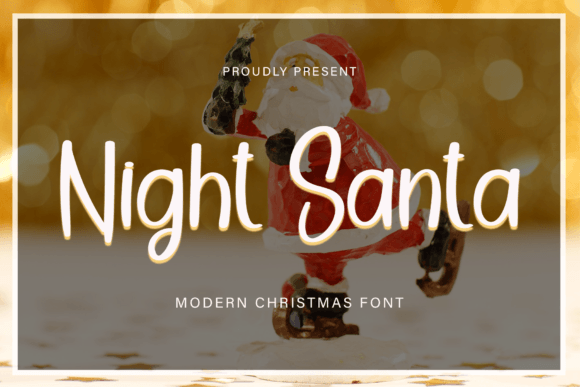
Welcome to the enchanting world of Night Santa, a font family that will bring warmth and charm to your creative projects. Experience the magic of handwritten artistry with Night Santa, a script font that dances across the page with a friendly and inviting personality.
Dive into a world of possibilities with Night Santa, the perfect choice for Instagram posts, where captivating visuals reign supreme. Let your words flow with elegance and authenticity, leaving an unforgettable impression on your audience. Whether you're a seasoned designer or just starting your creative journey, Night Santa is your gateway to captivating content that speaks volumes.
Explore the versatility of Night Santa, a font that seamlessly adapts to your creative vision. From heartfelt wedding invitations to playful birthday cards, from eye-catching posters to personal branding, Night Santa is your trusted companion. Let your imagination run wild as you craft unique designs that resonate with your audience, leaving a lasting impact.
With Night Santa, the boundaries of creativity dissolve, making way for artistic expression that knows no limits. Unleash the power of your imagination and let your designs bloom with personality. Night Santa is not just a font; it's an invitation to embark on a creative adventure, where every project becomes a masterpiece.